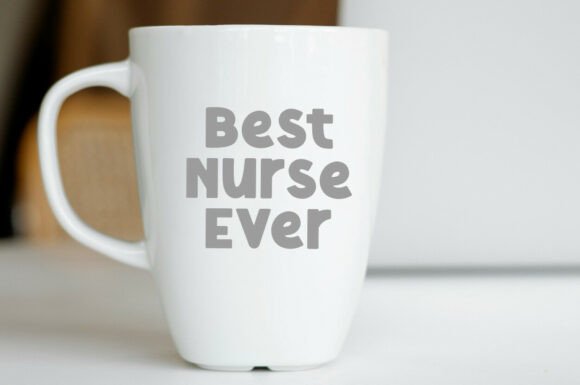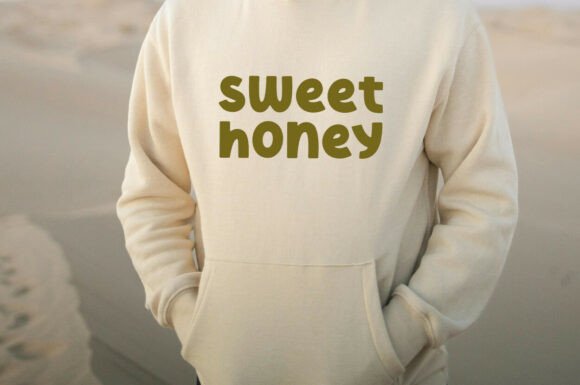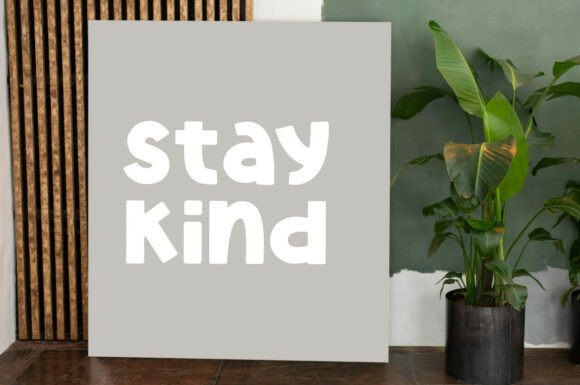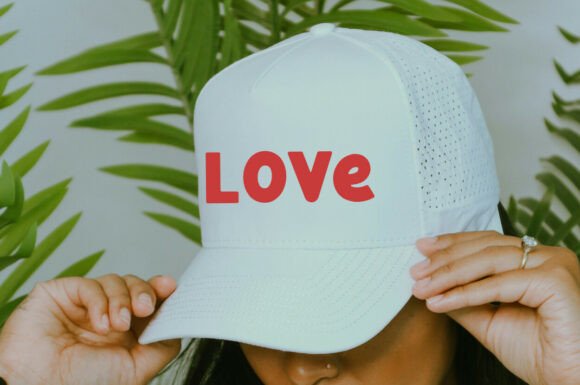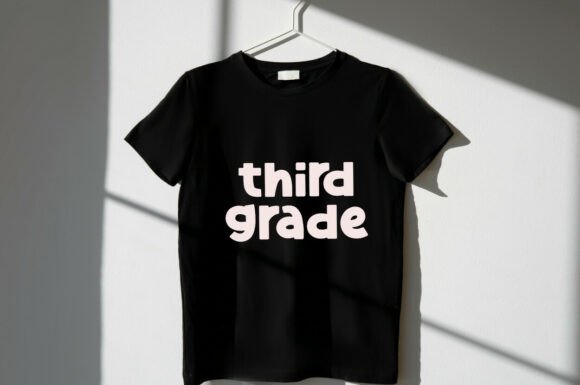
Discover the Whimsical Charm of First Like Font
I’ll never forget the design moment when I stumbled upon First Like Font. I was working on a nursery-themed branding project for a client’s children’s clothing line, and I was struggling to find the perfect font that would capture the essence of playfulness and wonder. The client wanted something that felt both modern and magical, with a dash of personality. That’s when I discovered First Like, and it was love at first sight! ✨
A Font that Casts a Spell of Charm
First Like Font is a magic cool font that balances modern geometry with a whimsical soul. Its sturdy, heavy-weight construction is redefined by soft, rounded terminals and unexpected, playful curves—most notably the expressive, starburst-like apertures and the bouncy “i” dot. This unique personality radiates a sense of friendly wonder and digital-native warmth, making it an extraordinary choice for creative blog headers, nursery-themed branding, mobile app interfaces, and personalized stationery.
- ✨ Unique and playful design that adds a touch of magic to any project
- ✅ Extensive OpenType features, including stylistic alternates and glyphs
- ✅ Works beautifully across various platforms, from digital to print
- ⚠️ Some characters may not work well in all contexts, such as the “fi” ligature
- 🤔 Limited support for non-English languages
The Designer Inspiration Behind First Like Font
First Like Font was designed with the intention of creating a unique, magical typeface that would bring a sense of wonder to creative projects. The designer, inspired by the world of fantasy and imagination, crafted a font that would balance modern geometry with a whimsical soul. The result is a font that feels both modern and timeless, perfect for designers, crafters, and creative hobbyists looking to add a touch of personality to their work.
| What is the best use for First Like Font? | First Like Font is perfect for creative blog headers, nursery-themed branding, mobile app interfaces, and personalized stationery. |
| Is First Like Font suitable for body text? | While First Like Font is highly legible, it’s best suited for headlines, titles, and short paragraphs. For longer body text, a more traditional font might be more suitable. |